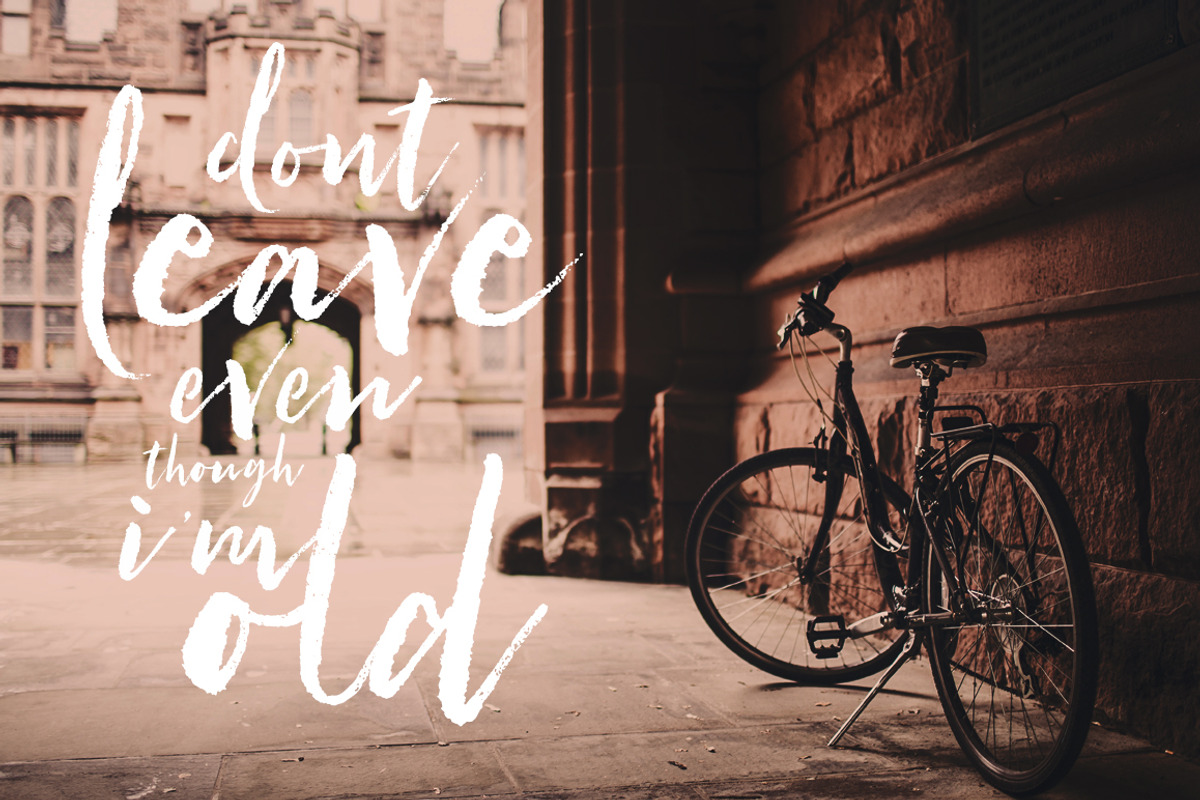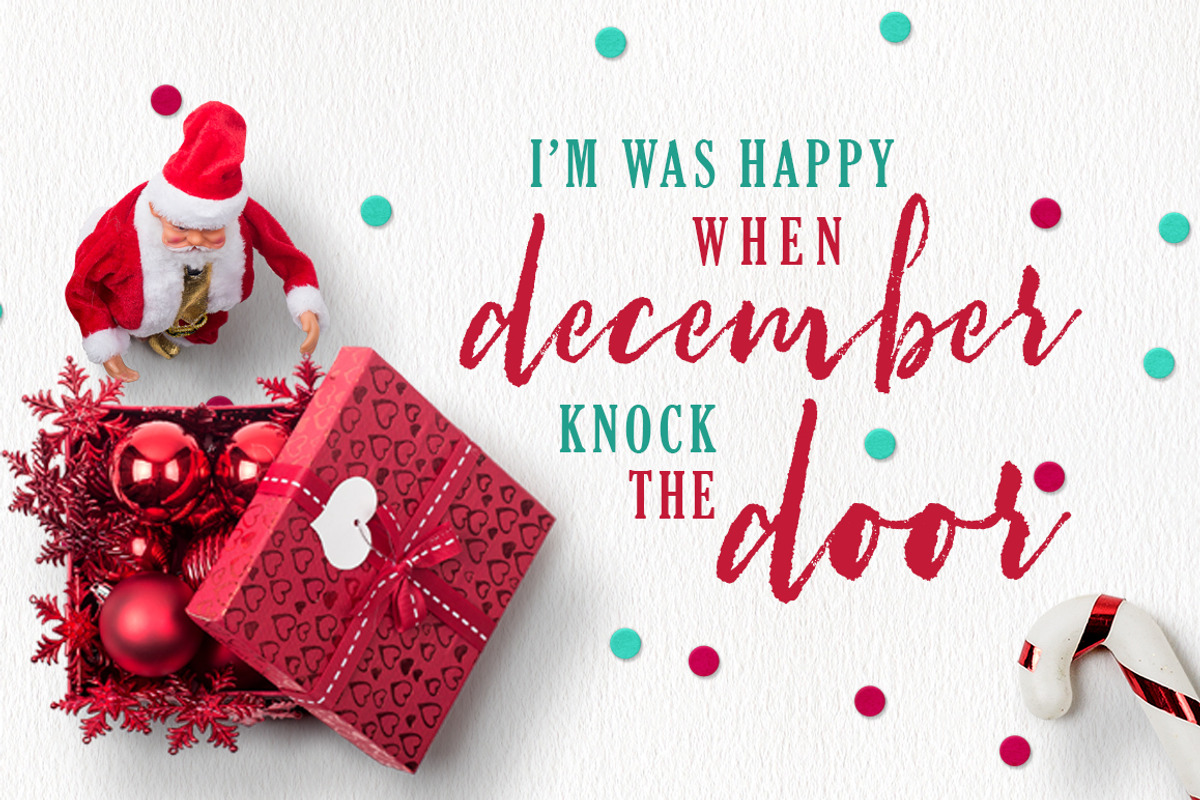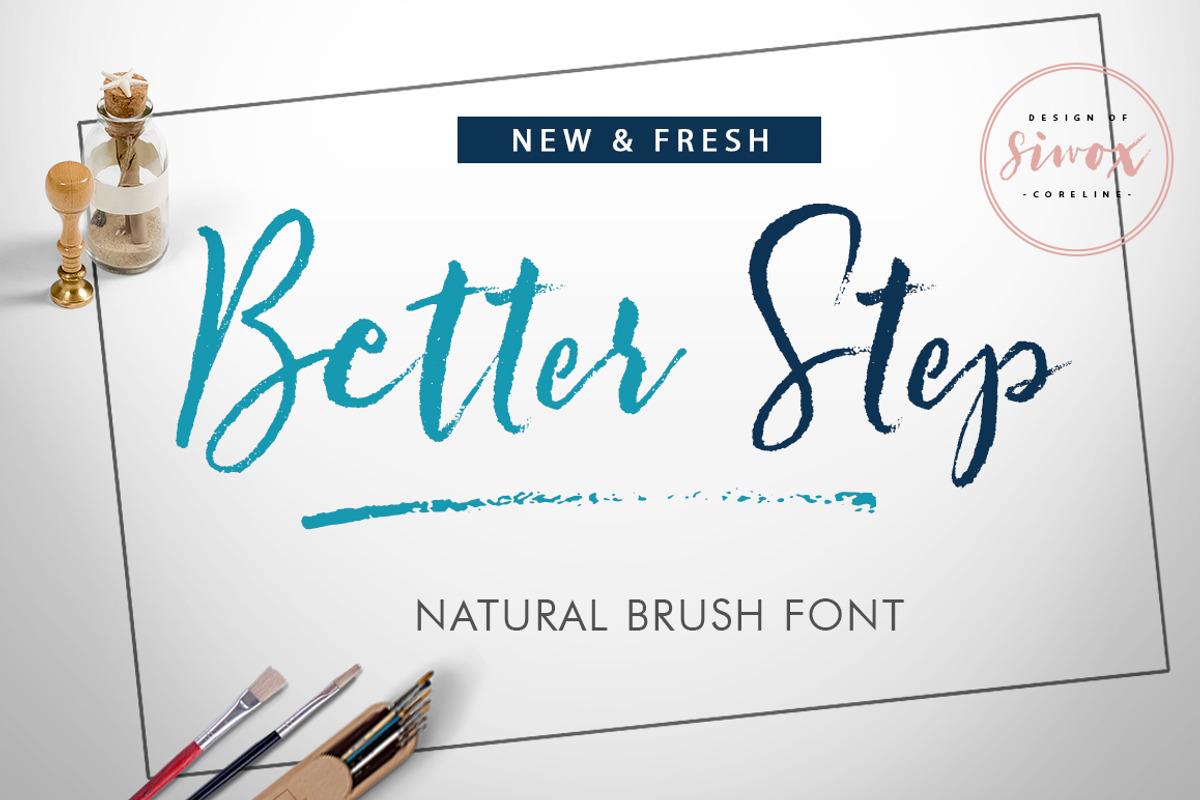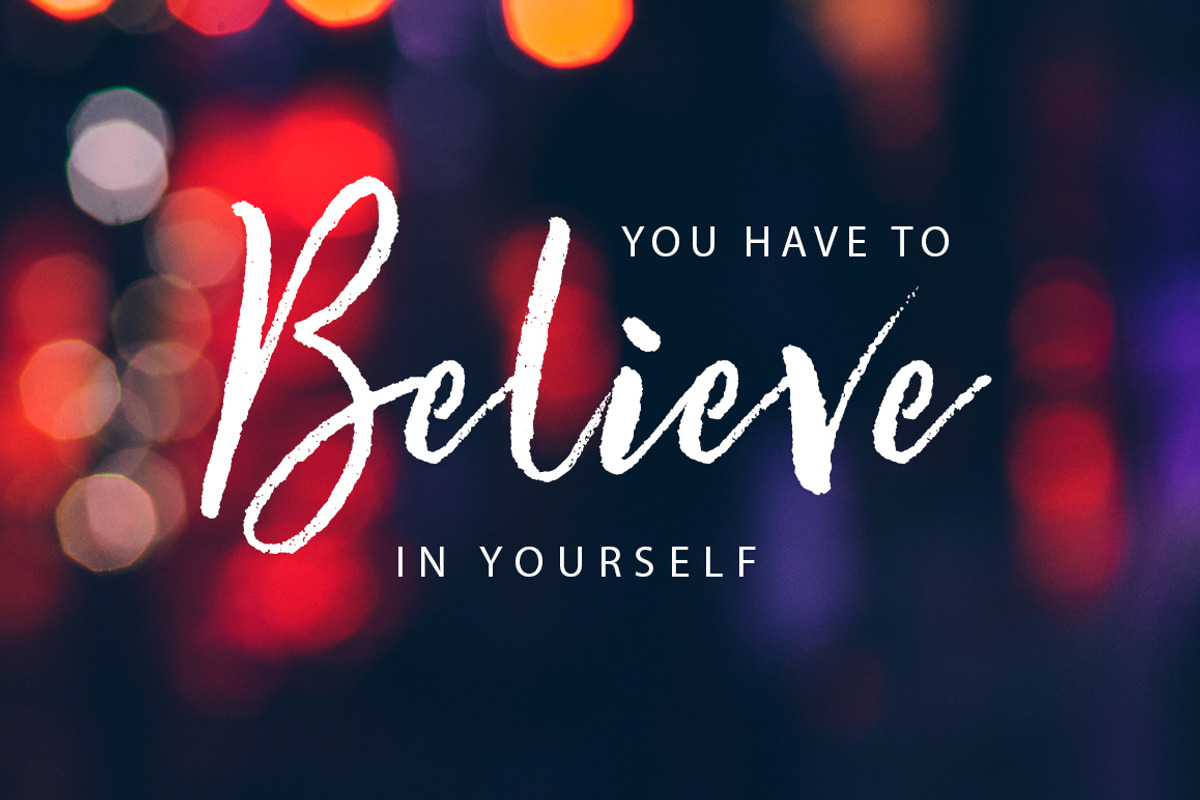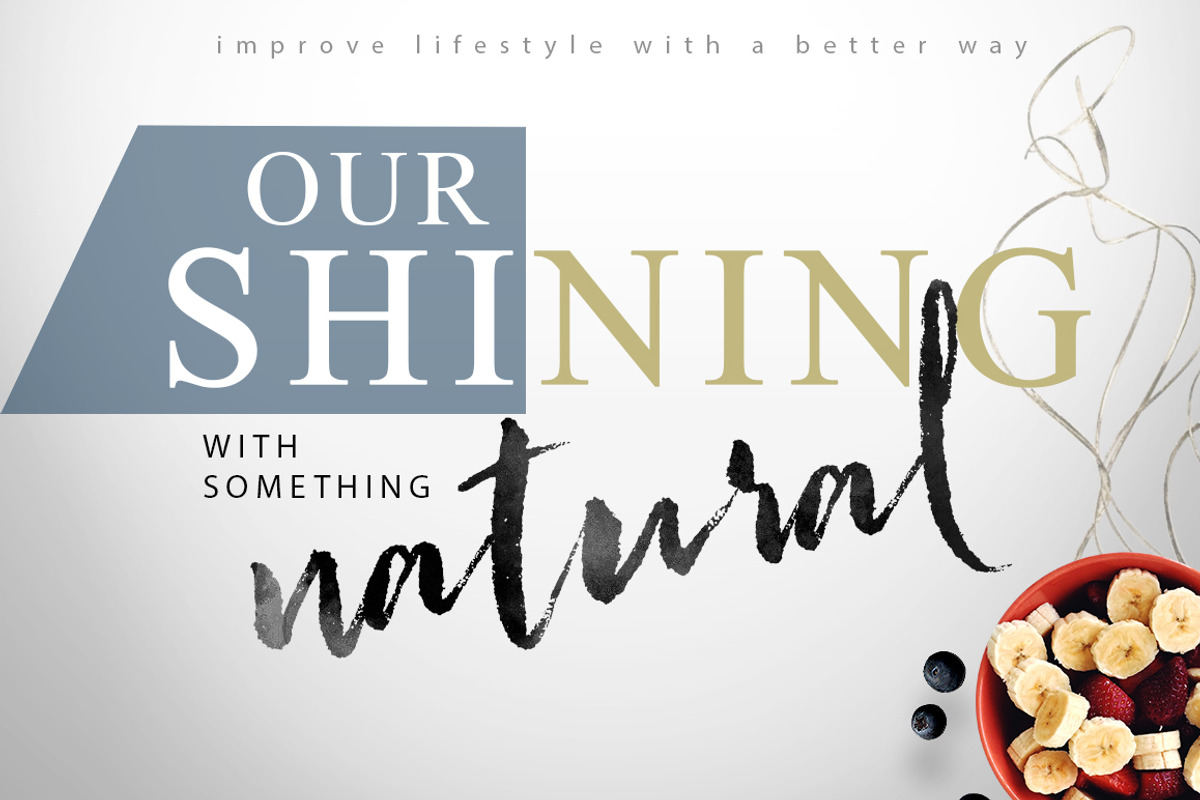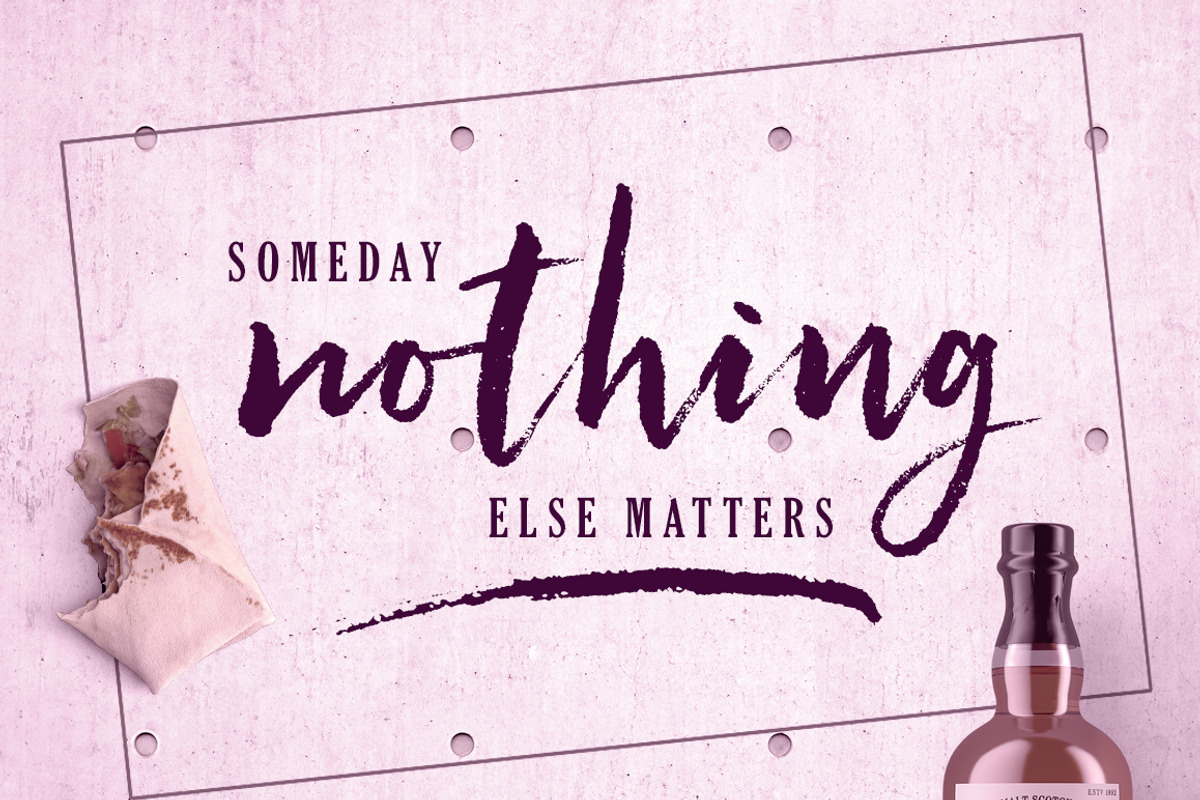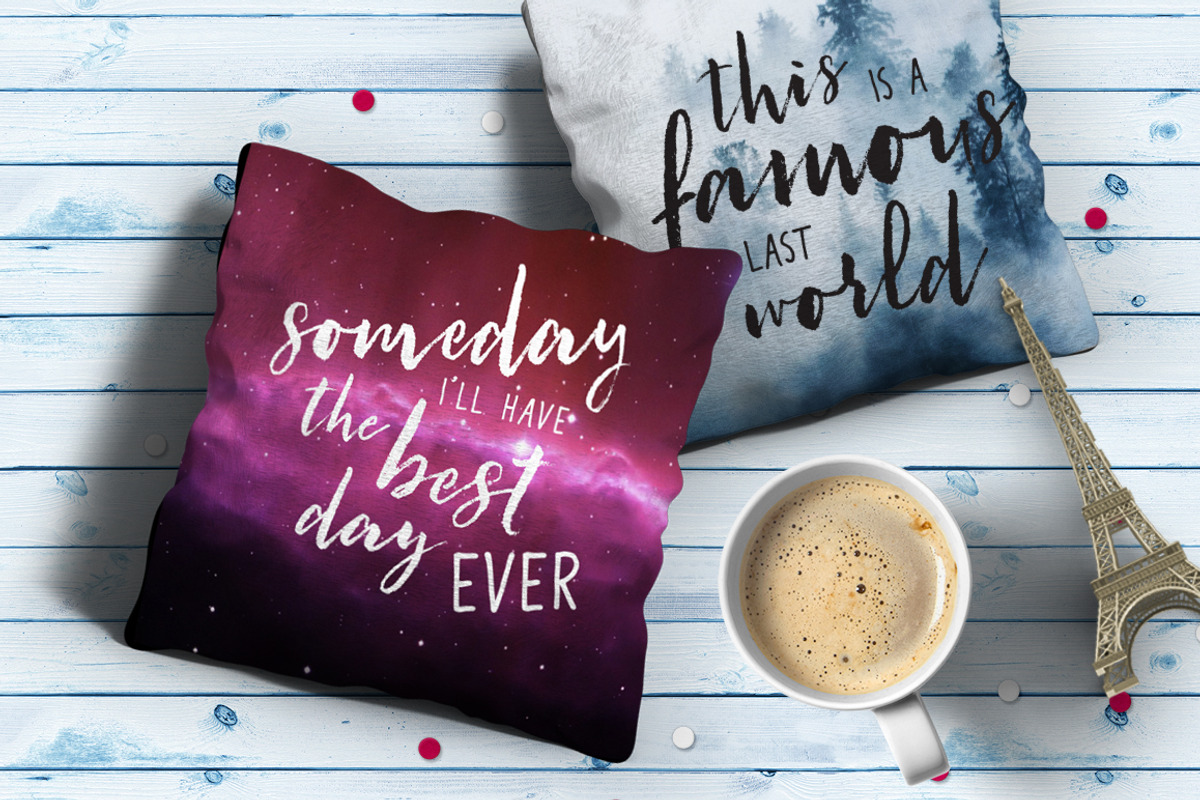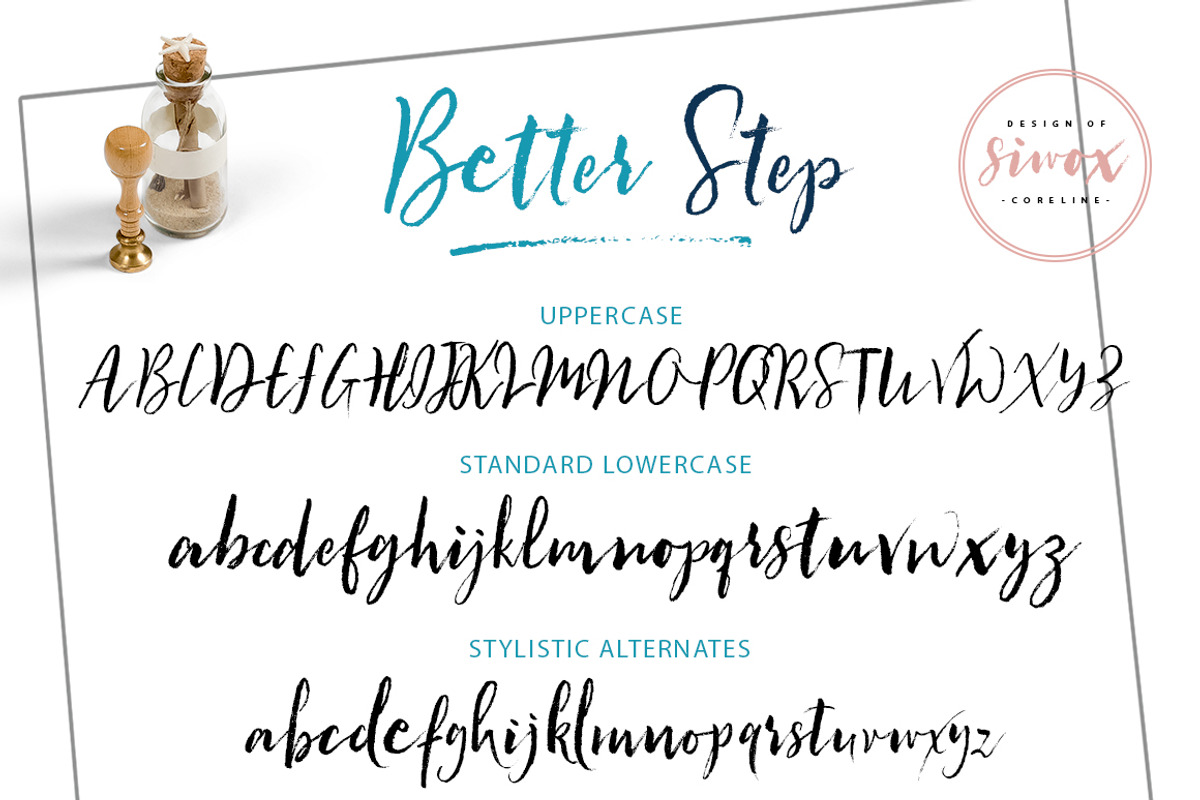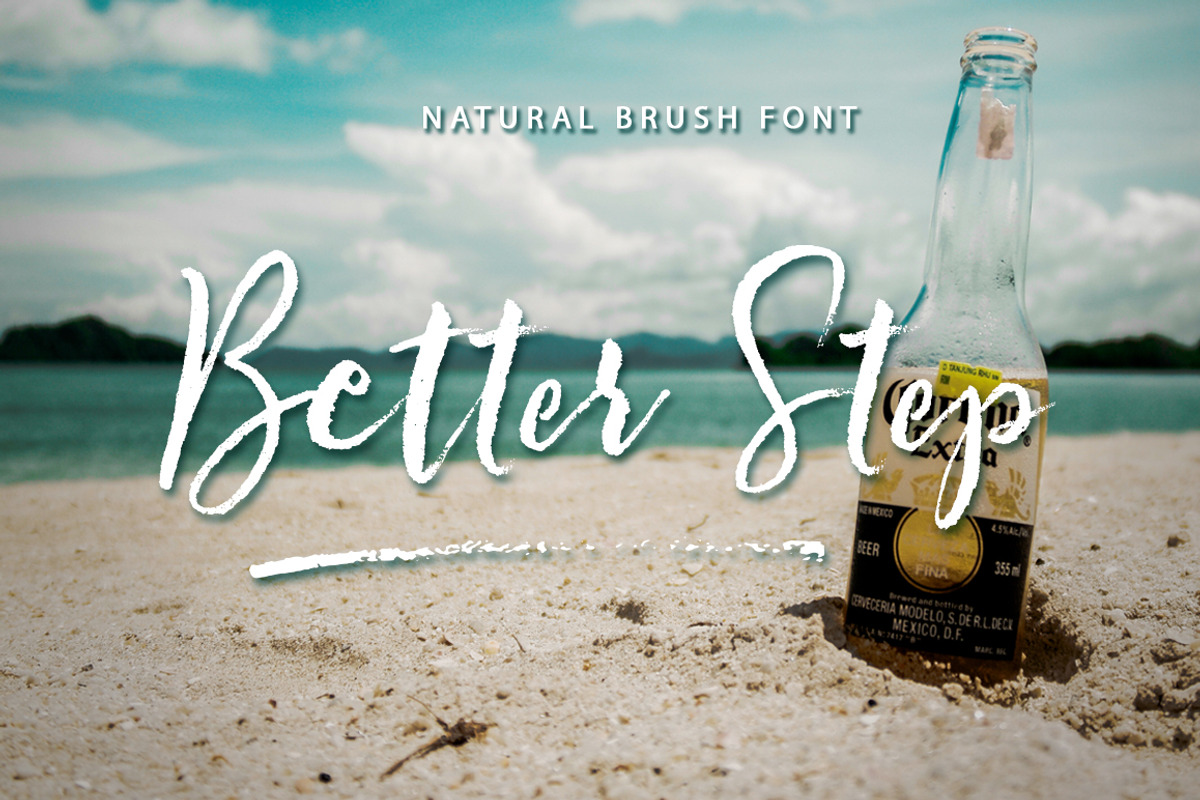
Better Step | Natural Brush Font
Let me introduce a BETTER STEP BRUSH!
Better Step is a handmade style font with stunning characters. Made with a brush and high quality water-based ink. Ideal for name tag, handwritten quotes, product packaging, merchandise, social media, greeting cards, etc. It contains a full set of lower & uppercase letters, a large range of punctuation, numerals.
To make your designs look even more naturally handwritten, Better Step has 1 extra sets of alternate lowercase letters.